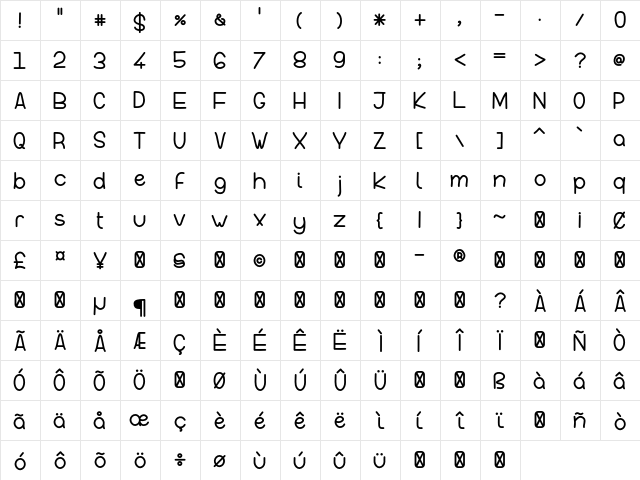
InFormal Style Regular Regular
Design Context for InFormal Style Regular Typeface
InFormal Style Regular offers clean, dependable letterforms without strong stylistic allegiance, making it a practical choice for designers who need flexibility.